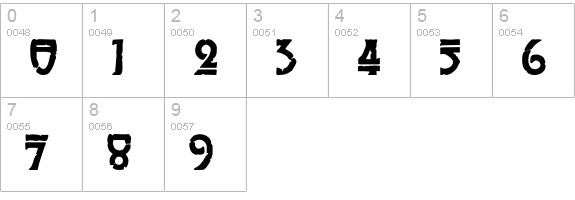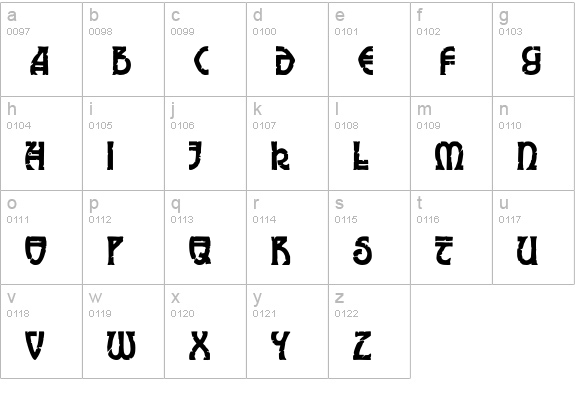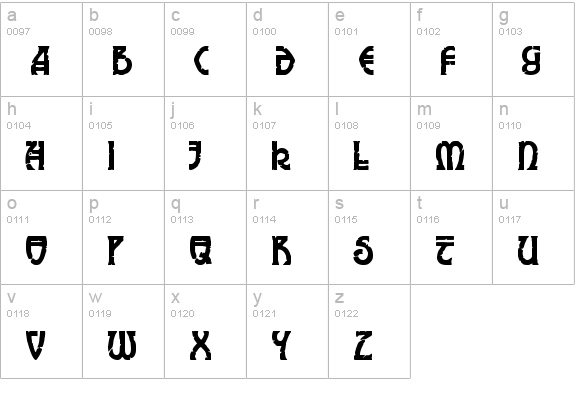
Elric Font Details
Elric font is an elegant and modern typeface that embodies sophistication and style. Its sleek lines and smooth curves make it perfect for a wide range of design projects, from branding to editorial design. The versatility of Elric font allows it to be used for both headlines and body text, ensuring a cohesive and polished look throughout your project. What sets Elric font apart is not only its visual appeal but also the fact that it is available for free. That's right, you can download this stunning font at FontsMarket.com without any cost, making it accessible to designers and creators of all levels. Whether you are working on a personal project or a professional assignment, Elric font is sure to elevate your design with its timeless and refined aesthetic. Don't miss out on the opportunity to enhance your work with Elric font's striking presence and effortless charm. Download it for free today at FontsMarket.com and see the difference it can make in your design endeavors.